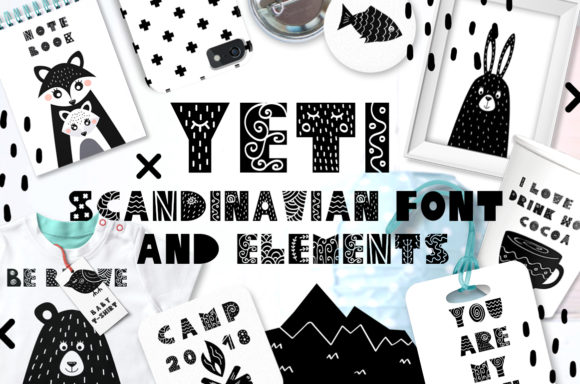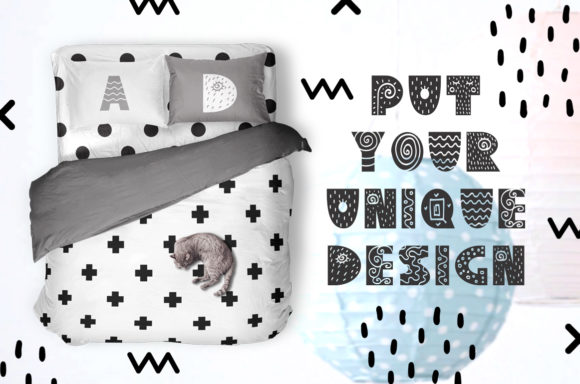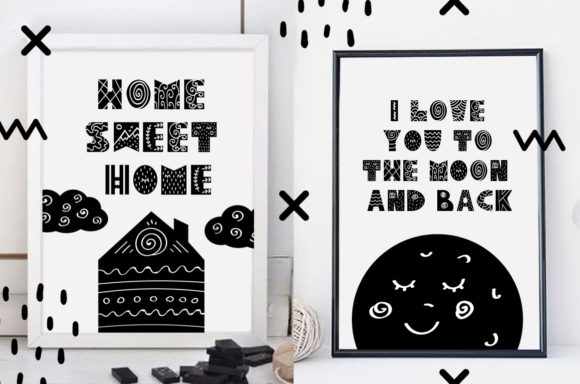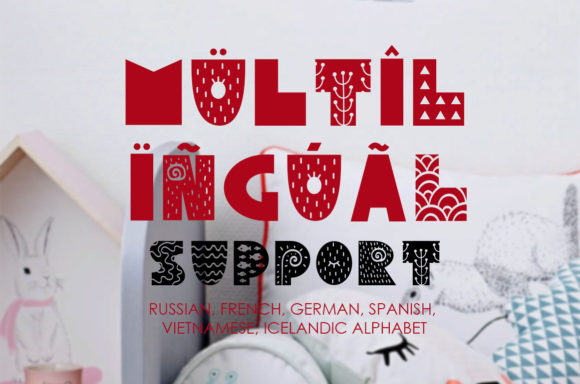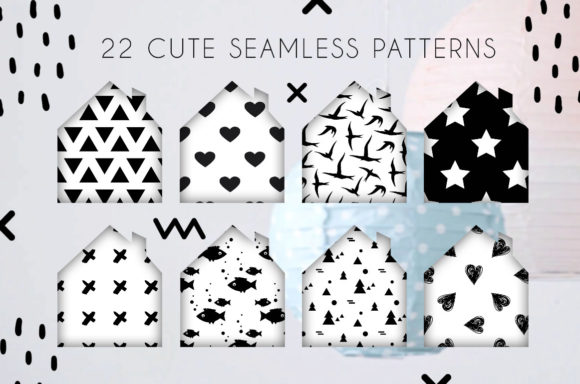
Yeti Font
About Yeti Font
In this amazing download you will find a pretty font and decorative elements in Scandinavian style! The Yeti has an unique style with a playful feel, and can be used to create endless unique designs with a fun twist.
With this download, you can create posters for the interior, but also striking invitations, gift packaging, greeting cards, wallpapers, textiles, logos, magnets, notebooks, prints, posters and much more!